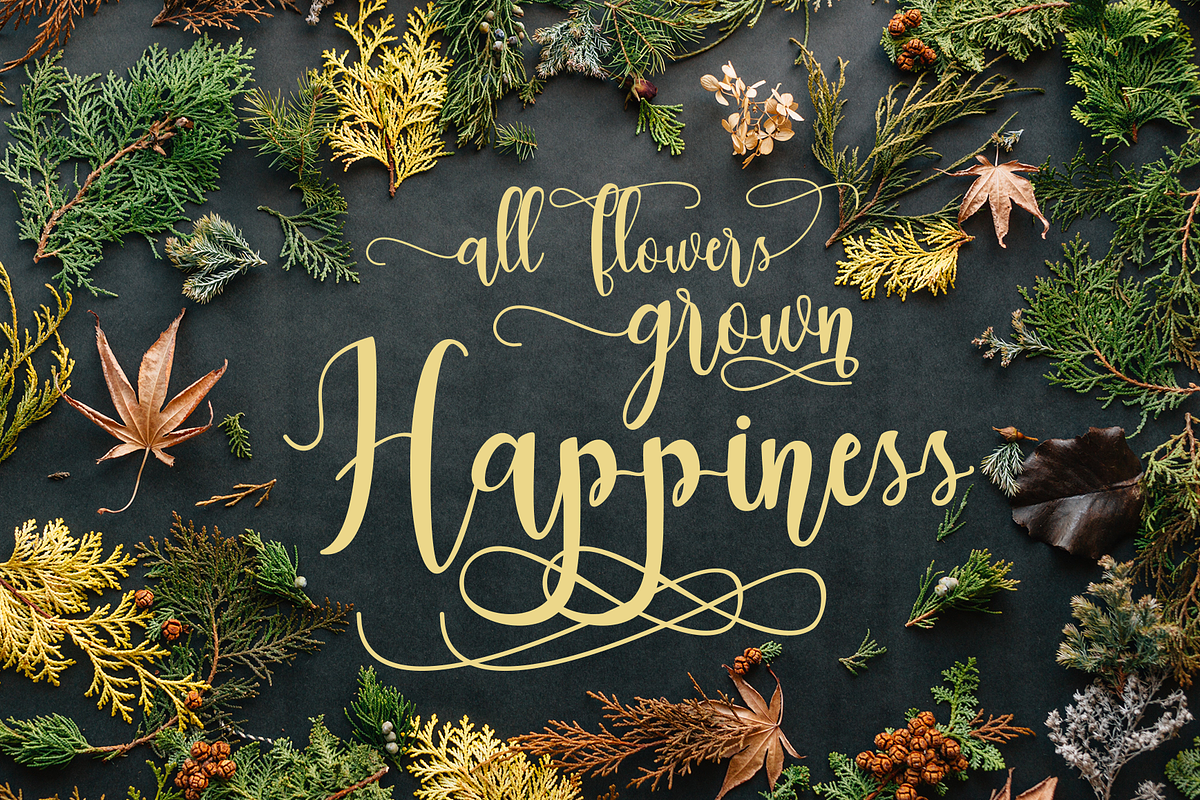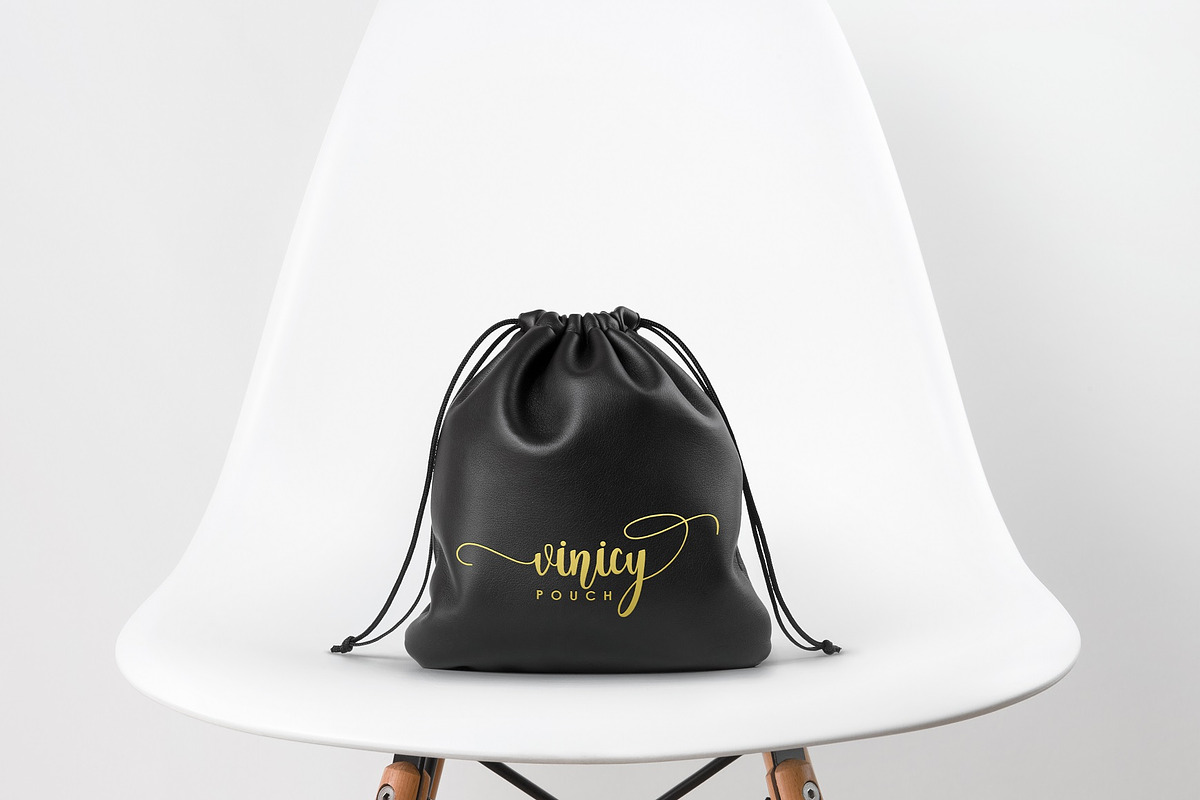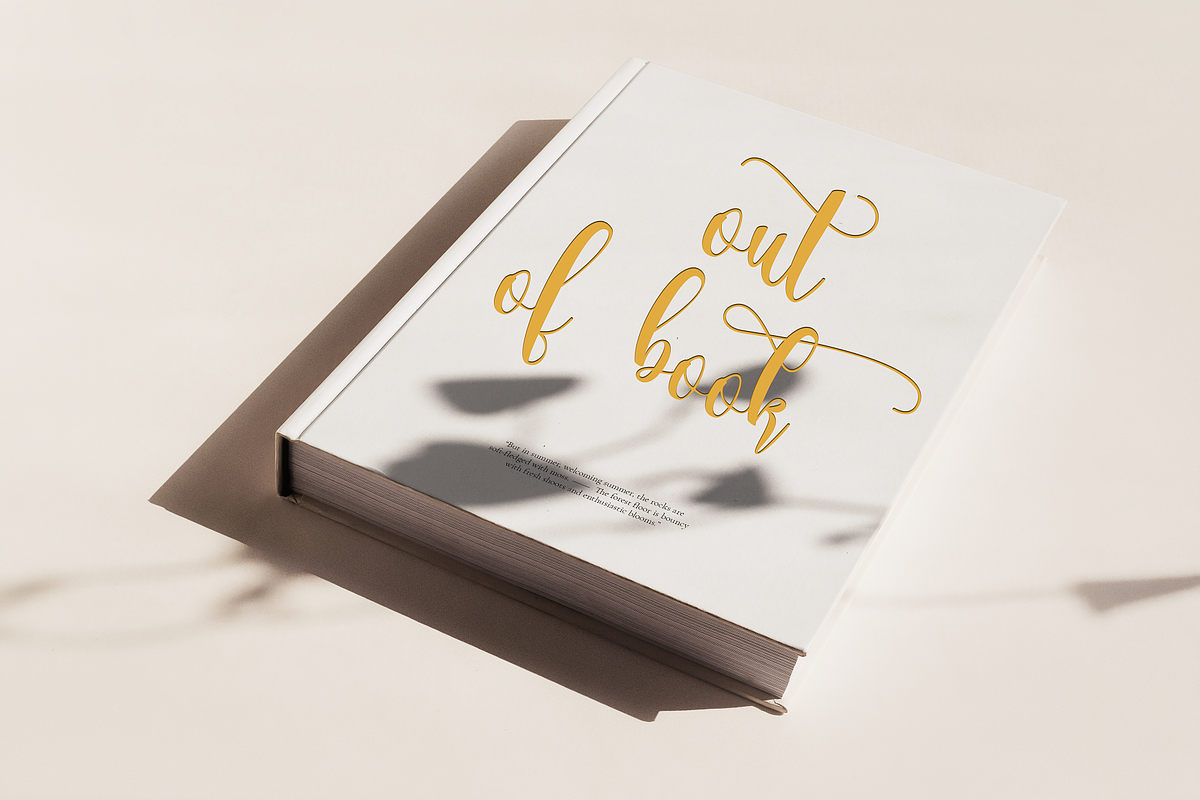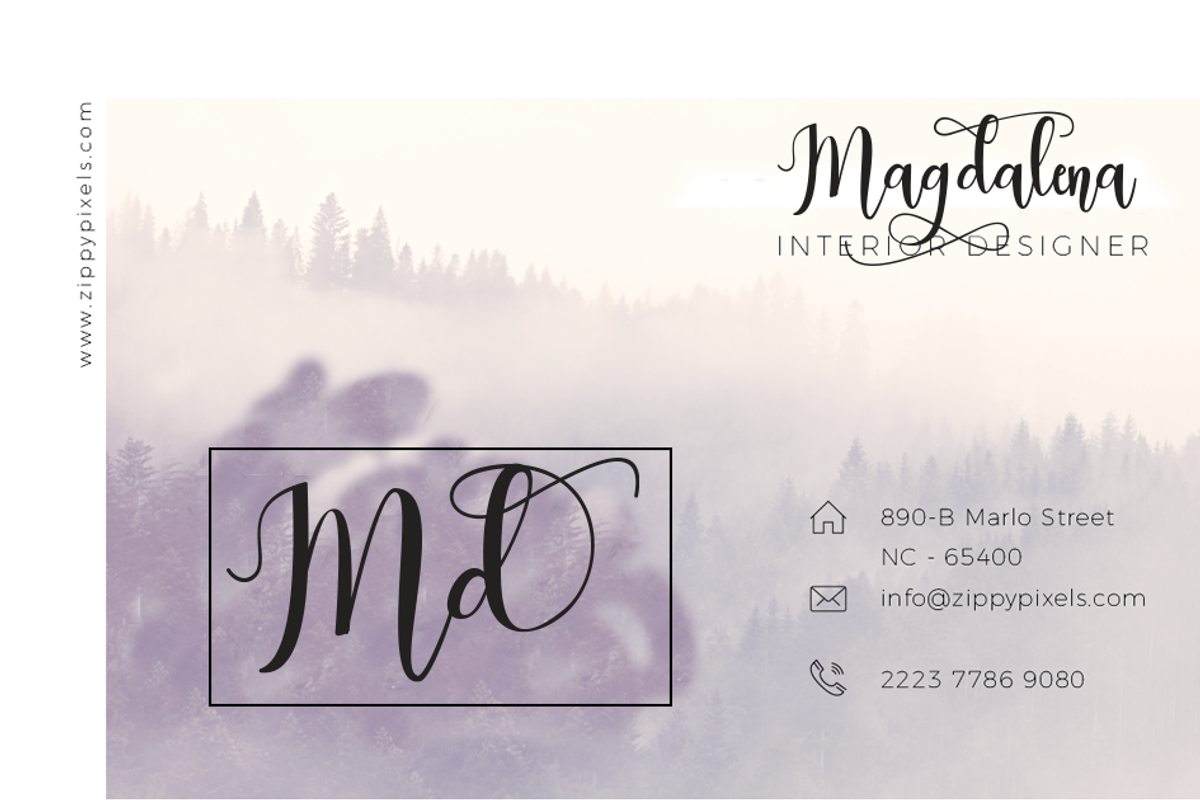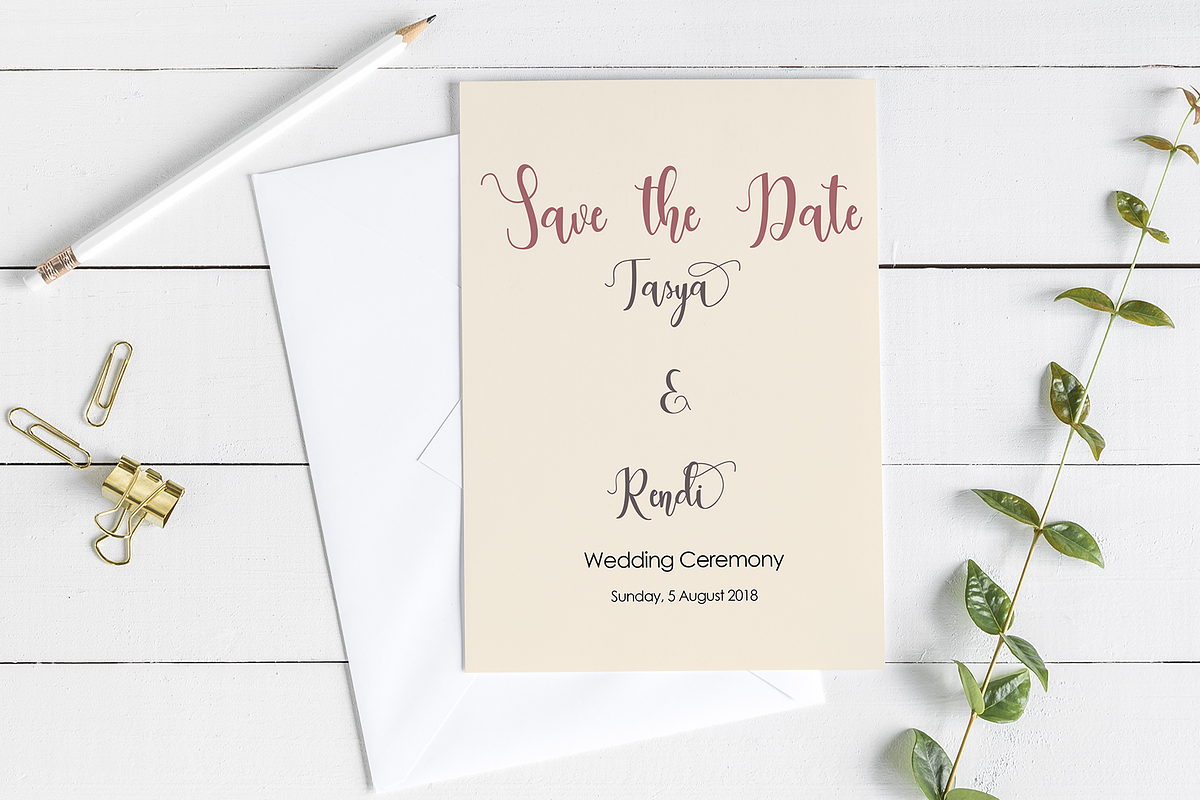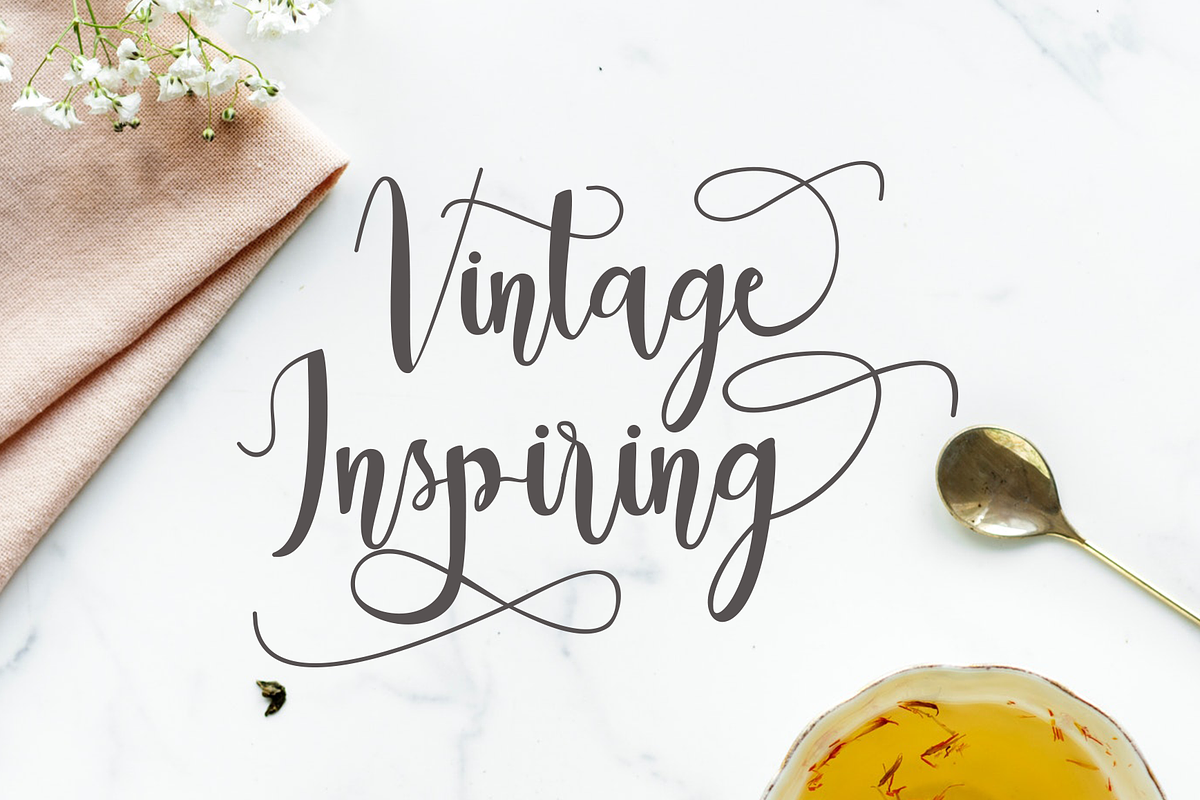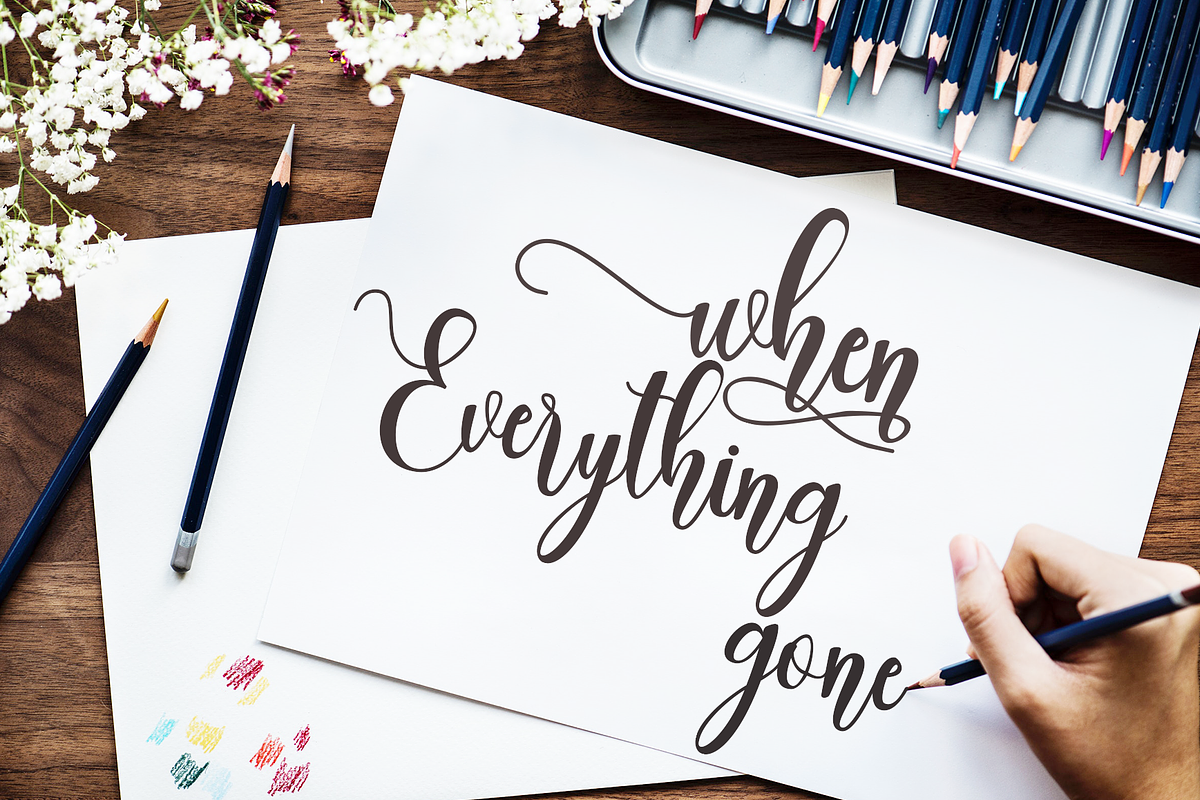
dealove font script
Hello ... Introducing the latest styles dealove font Script with the kind of modern hand scratches, I hope you are interested in this font, if you want to use for your work this font can be used easily and simply because there are a lot of features in it to contain a complete set of letters lower and uppercase letters, assorted punctuation, numbers, and multilingual support. font also contains several ligatures and alternate style Stylistic Sets for those of you who have software that is able to work OpenType (Photoshop / Illustrator / InDesign).
dealove font Script is suitable use for market design developed at this time, this font has a model Trendy, natural and gentle, with this font you can take advantage of the opportunity in every moment of one wonderful way to highlight the celebration of the feast of your best, because this font will be advocates for purposes such as wedding invitations, party, graduation, birthday, gathering, etc.
Why dealove font script is worth a look
dealove font script by Analogous fits naturally into Branding, posters, packaging, typography.